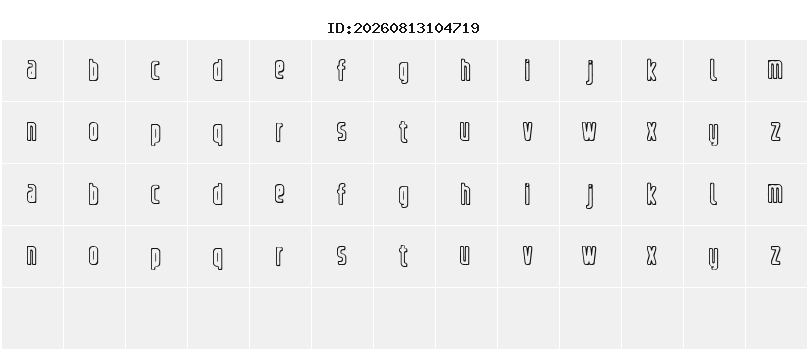
Refrigerator Outline Preview
• Font Name: Refrigerator Outline
• Font Style: Outline
• Designer: Frédéric Rich
About Refrigerator Outline.ttf
Refrigerator Outline.ttf is a modern, elegant sans-serif font designed for ultimate readability and visual harmony. Perfect for branding, headlines, web design, and print materials.